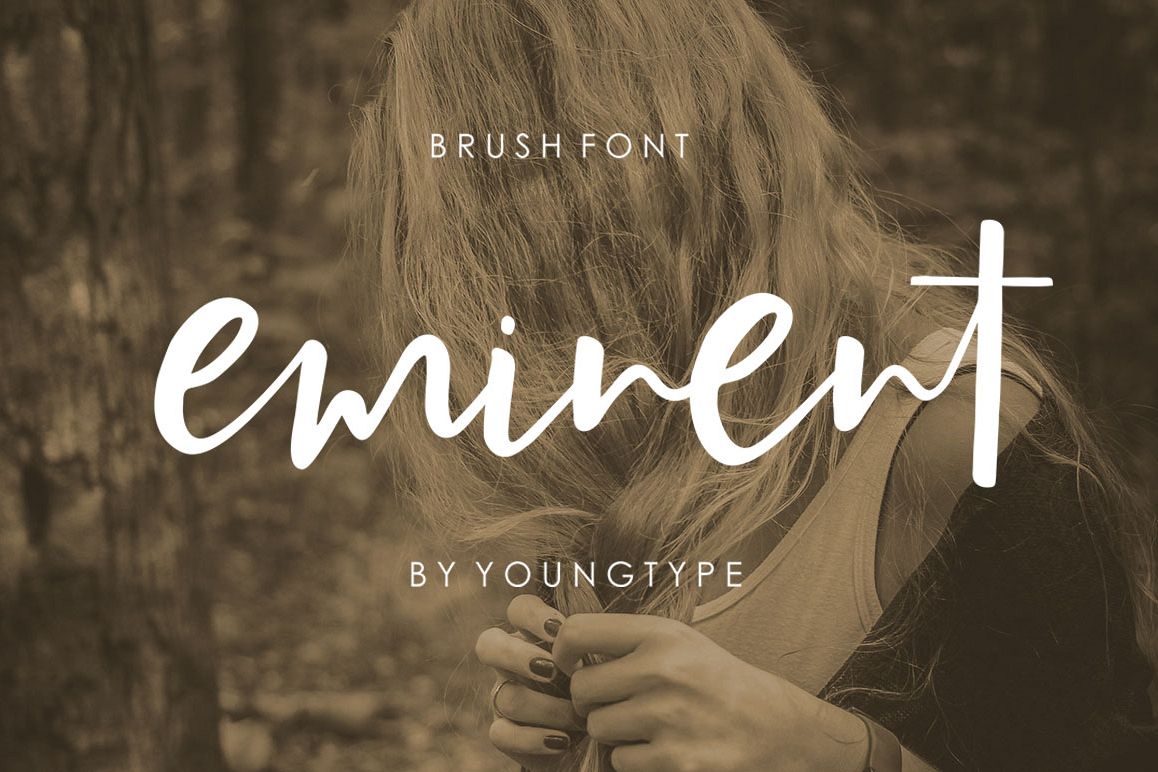
Eminent Script
INTRODUCING!Eminent script is a hand brushed font created with a brush and ink, bold and irregular baseline. Contains a complete set of lowercase, uppercase, alternates, ligatures, punctuation, numbers, and multilingual support. And additional, working in harmony with Eminent script to create typography awesome creations. Get some inspiration from the preview above. Contains a complete set of lowercase, uppercase, ligatures, punctuation, numbers, and multilingual support.Eminent Ligature Styleot st it at tt th in em nt en rr ss ez az ex ax hh ap et ep yy bb dj dt lt oo or xr pp dh dd dg op tj sj sp oy om on fl vr wr dp my df dy mr dk db fr mrs Drs DrThis font ideal for use in watercolor design or lettering style bold hand, such as blog header, posters, wedding elements, t-shirt, apparel, cover books, business cards, greeting cards, branding, merchandise, invitations and handmade quotes and more.How to access all alternative characters, using Windows Character Map with Photoshop:https://www.youtube.com/watch?v=Go9vacoYmBw How to access all alternative characters using Adobe Illustrator:https://www.youtube.com/watch?v=XzwjMkbB-wQ Thank you!